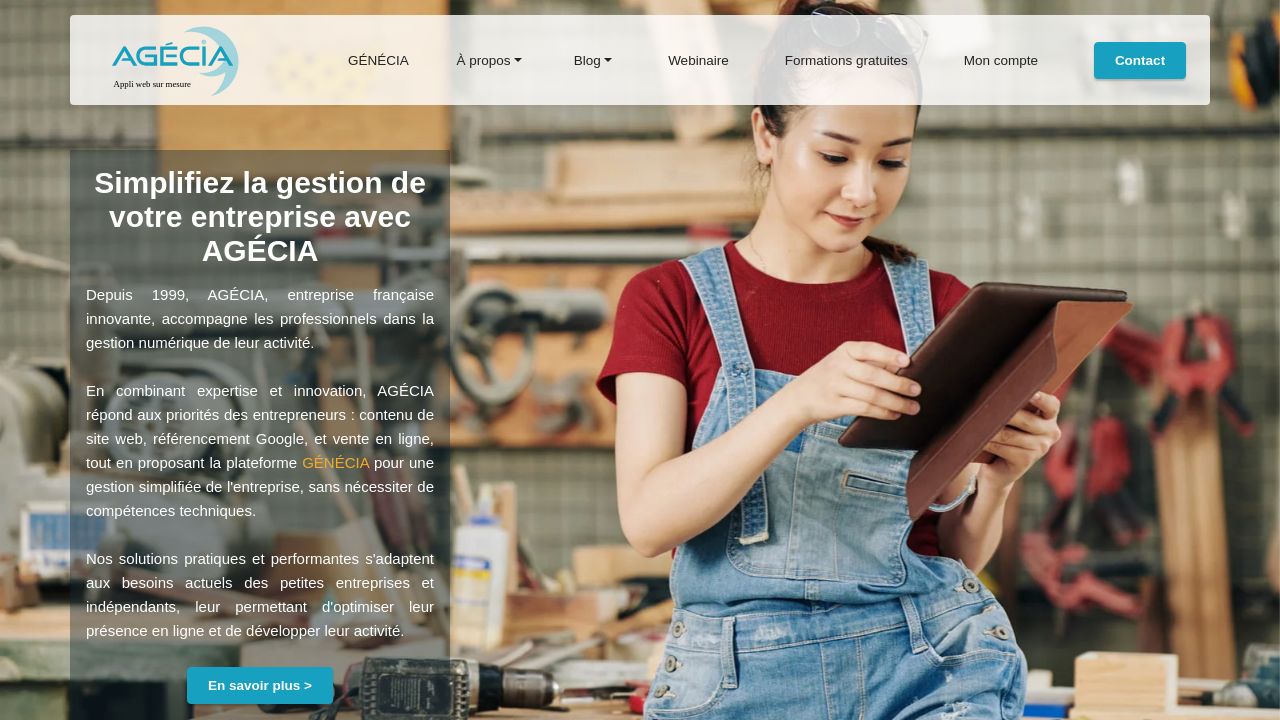
beta.agecia.com: What fonts does Beta use? - Material Design Icons, Moririse2
What fonts does Beta use?
AGECIA appli web sur mesure utilizes unique custom fonts like Material Design Icons and Moririse2 to create a distinctive visual identity. These choices resonate with their target audience, which includes businesses seeking tailored web solutions. By employing these fonts, AGECIA communicates a sense of innovation and creativity that sets them apart in the tech industry. The use of fallback fonts like Arial and Roboto further ensures readability across various devices, enhancing user experience on their platform.
Used for UI icons rather than readable text - no preview available.
What fonts does beta.agecia.com use?
beta.agecia.com primarily uses custom fonts, including Material Design Icons and Moririse2. These fonts contribute to the site's unique identity.
How do the fonts on beta.agecia.com compare to alternatives?
Moririse2 offers a modern aesthetic compared to standard fonts, while Material Design Icons provides intuitive visual cues. They stand out against conventional options like Arial and Helvetica.
What styles and weights are used in beta.agecia.com's fonts?
AGECIA primarily uses normal weights for both Material Design Icons and Moririse2. This choice maintains consistent legibility across the site.
Why does beta.agecia.com use fallback fonts?
Fallback fonts like Arial and Roboto ensure that the text remains readable in case the primary custom fonts fail to load, providing a seamless user experience.